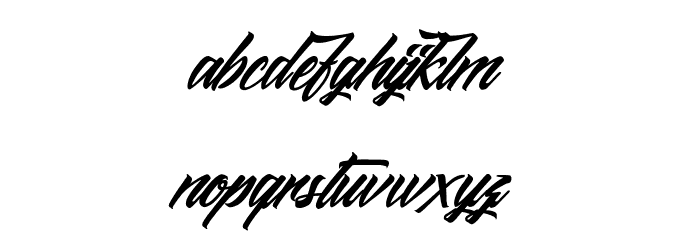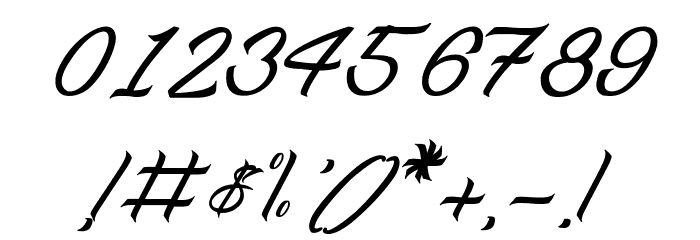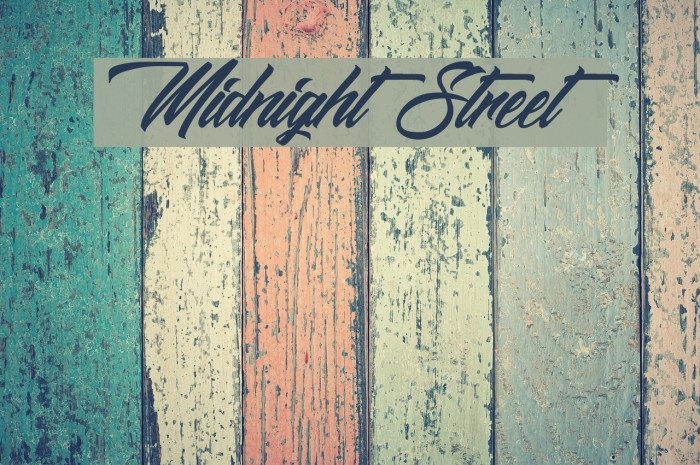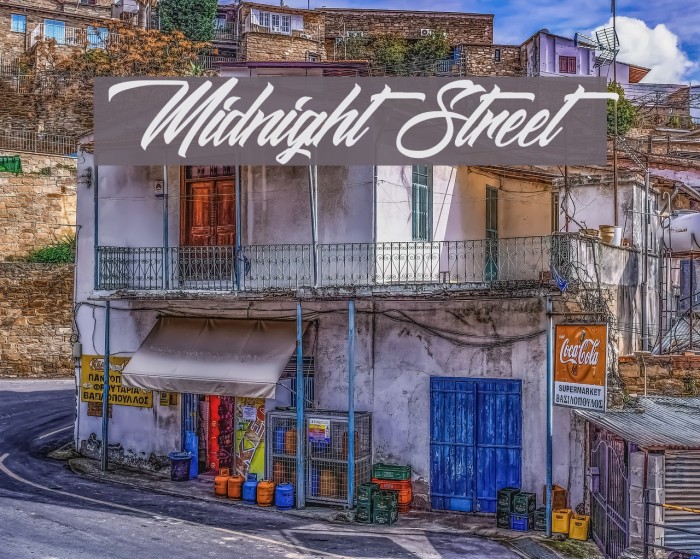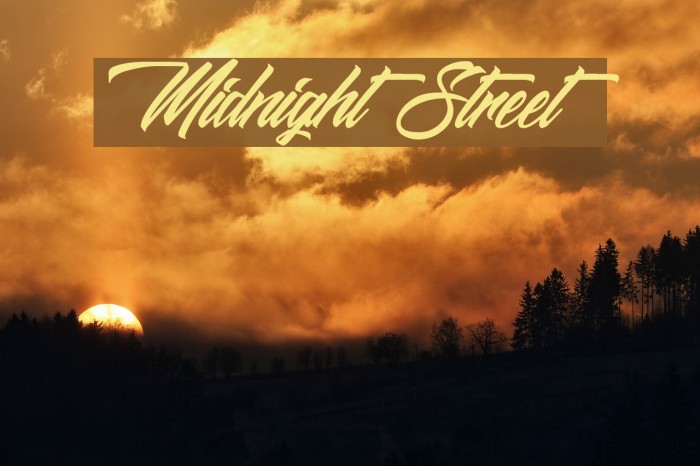
Midnight Street Font
This font exudes a dynamic and energetic vibe with its bold, cursive style. The letters are elegantly connected, creating a fluid motion across the text. The strokes are thick and expressive, giving each character a sense of movement and flair. The uppercase letters are particularly striking, with dramatic flourishes that add a touch of sophistication. The lowercase letters maintain a consistent flow, complementing the uppercase with their smooth curves. Numbers and special characters are equally stylized, ensuring a cohesive look throughout. This font is perfect for projects that require a touch of elegance and personality.
A bold, cursive font with dynamic strokes and elegant flourishes.
- Font: Midnight Street
- Proposed Projects: Ideal for wedding invitations, branding, logos, and artistic posters.
- Category: Script
- Character Spacing: Tight
- Use Case: Logos, Headlines, Invitations